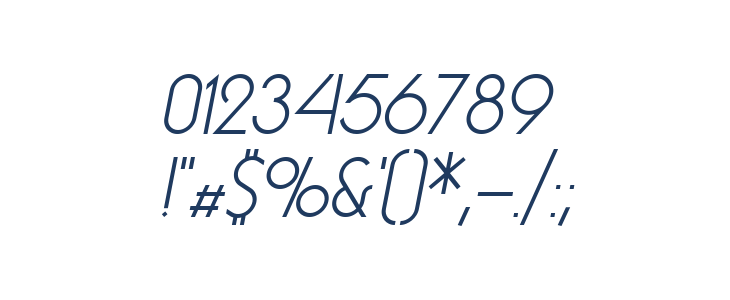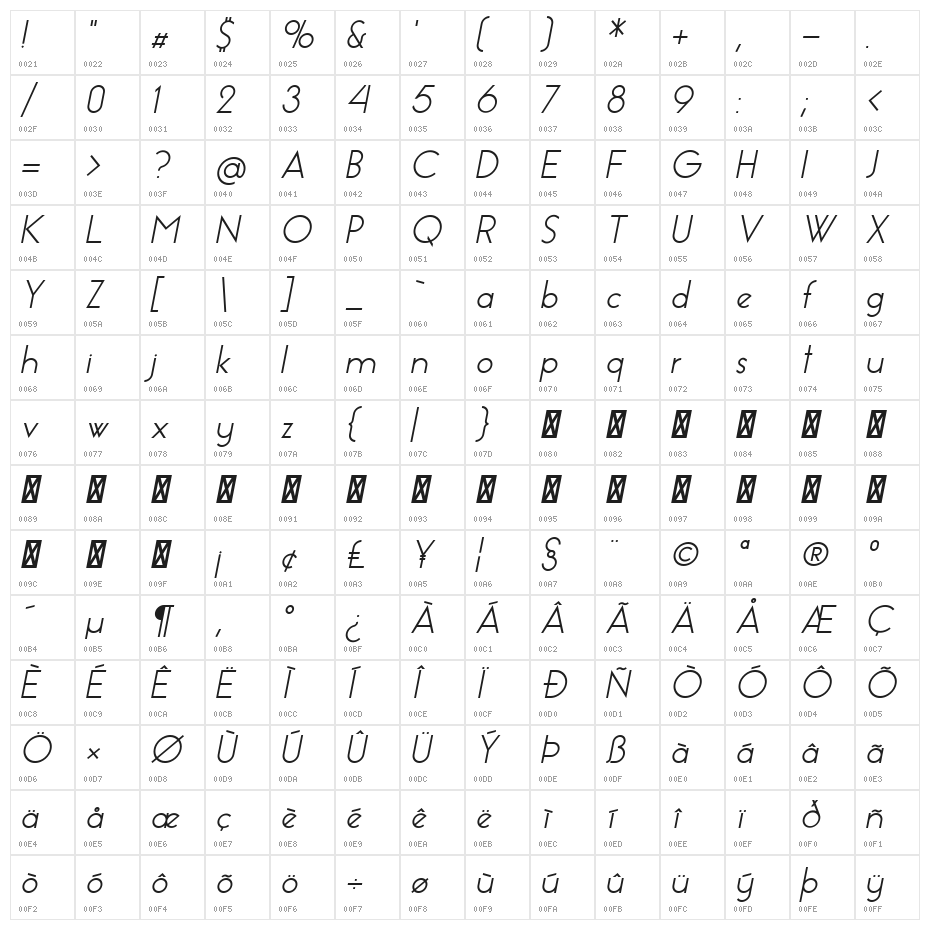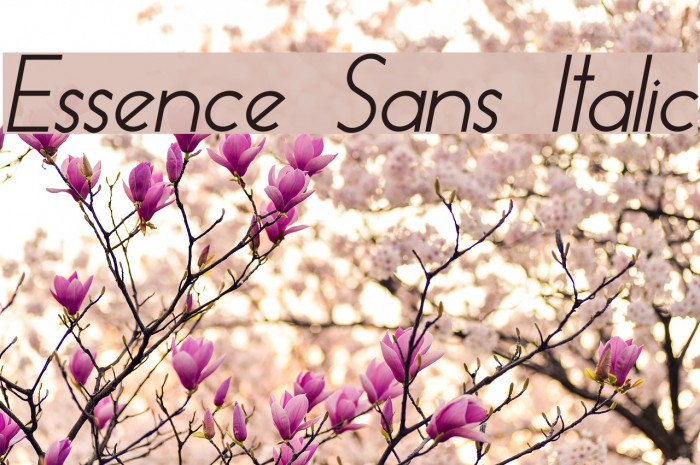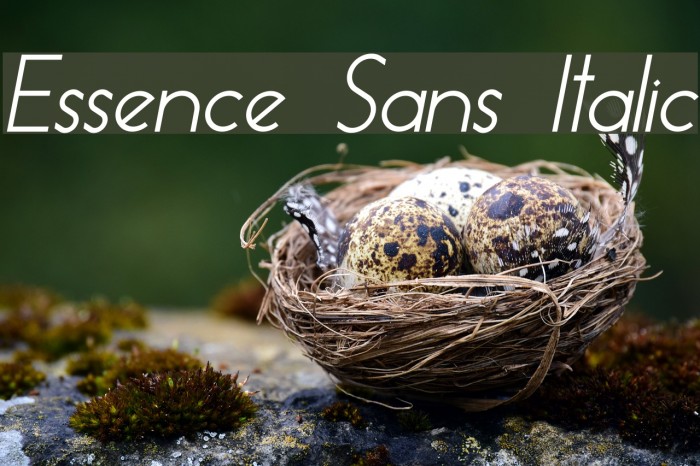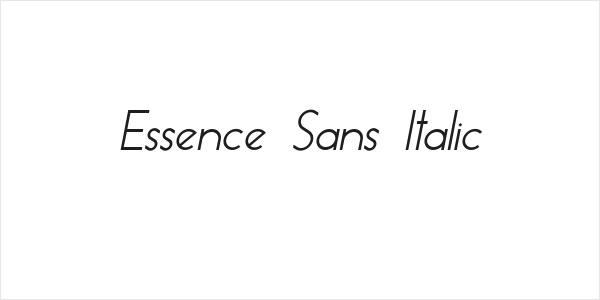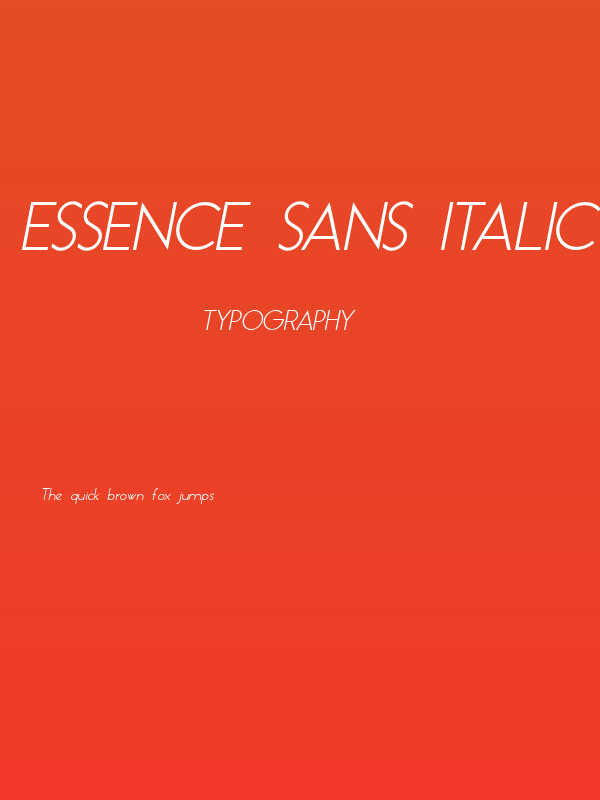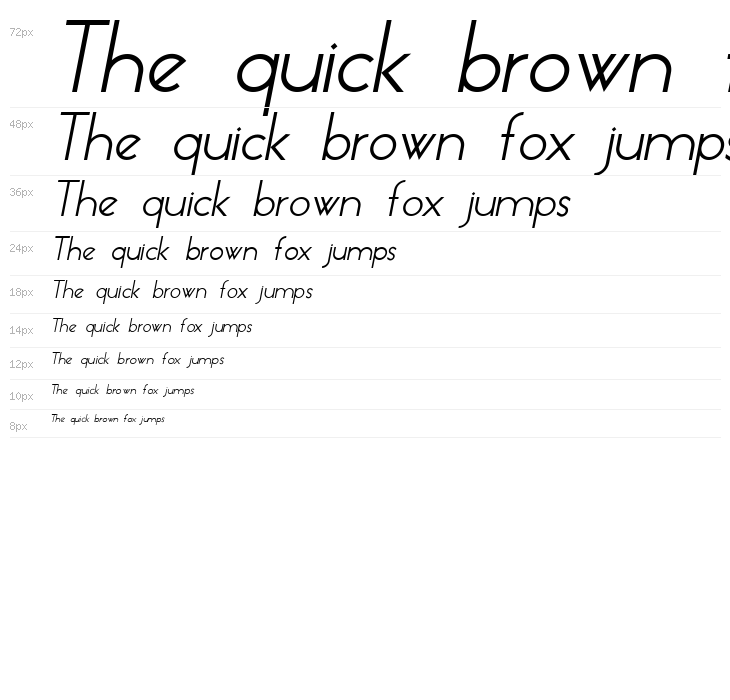
Essence Sans Italic Font
Essence Sans Italic Description
This font features a sleek and modern sans-serif design with a distinct italic slant, giving it a dynamic and forward-moving appearance. The characters are elegantly thin, with a consistent stroke width that conveys a sense of sophistication and minimalism. The uppercase letters are tall and slightly condensed, while the lowercase letters maintain a smooth, flowing form. The numerals are clean and easily readable, matching the overall aesthetic of the font. Special characters are well-integrated, maintaining the font's cohesive style. This font's design is ideal for projects that require a contemporary and stylish look.